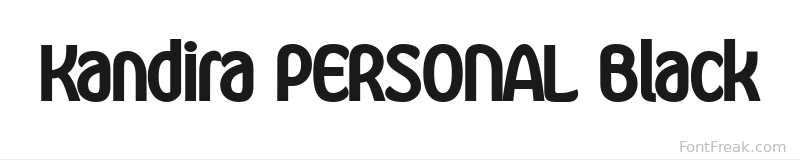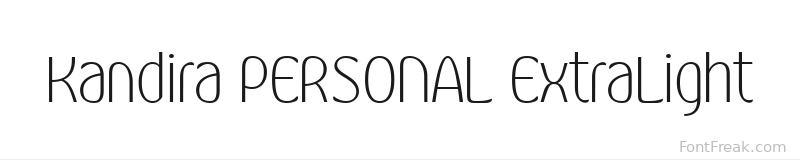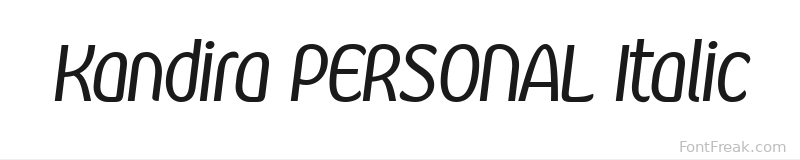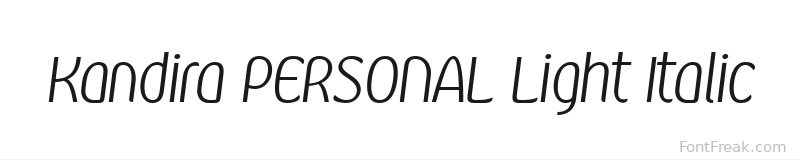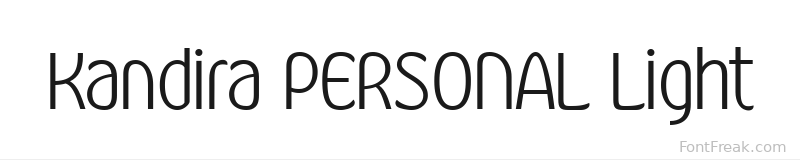
Kandira PERSONAL Black Italic
Kandira PERSONAL Black Italic is a striking display font designed by Mans Greback, falling into the sans-serif category. This font features an eye-catching italic style that exudes modernity and confidence. With a bold stroke weight and noticeable contrast, Kandira PERSONAL Black Italic captures attention while maintaining readability. The characters are spaced in a way that enhances legibility, making it suitable for various design applications. Its unique curves and dynamic angles add a touch of flair, making this font perfect for projects that require a bold statement.
This versatile font is ideal for a range of use cases. Graphic designers can leverage Kandira PERSONAL Black Italic for eye-catching movie posters or album covers, where impactful typography is essential. Small business owners might find it perfect for branding materials, such as logos or promotional flyers, where a modern touch can attract customers. Content creators can utilize this font for social media graphics, ensuring their posts stand out in crowded feeds. Additionally, it serves well in restaurant menus, offering a contemporary feel that complements modern dining experiences.
What sets Kandira PERSONAL Black Italic apart is its ability to blend boldness with elegance, making it a unique choice for anyone looking to elevate their design projects. Its engaging style, combined with its free download availability, ensures that this font can be a go-to resource for creative professionals. Embrace the opportunity to enhance your projects with the Kandira PERSONAL Black Italic font free download today.